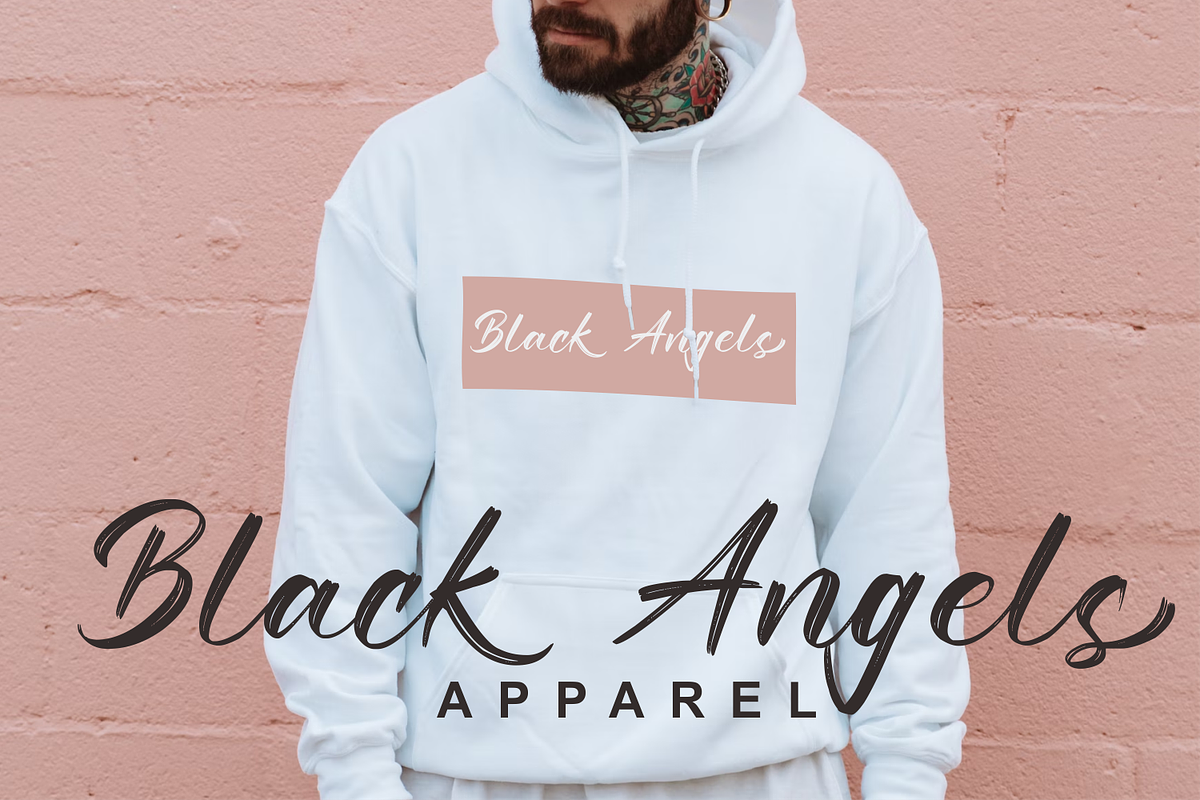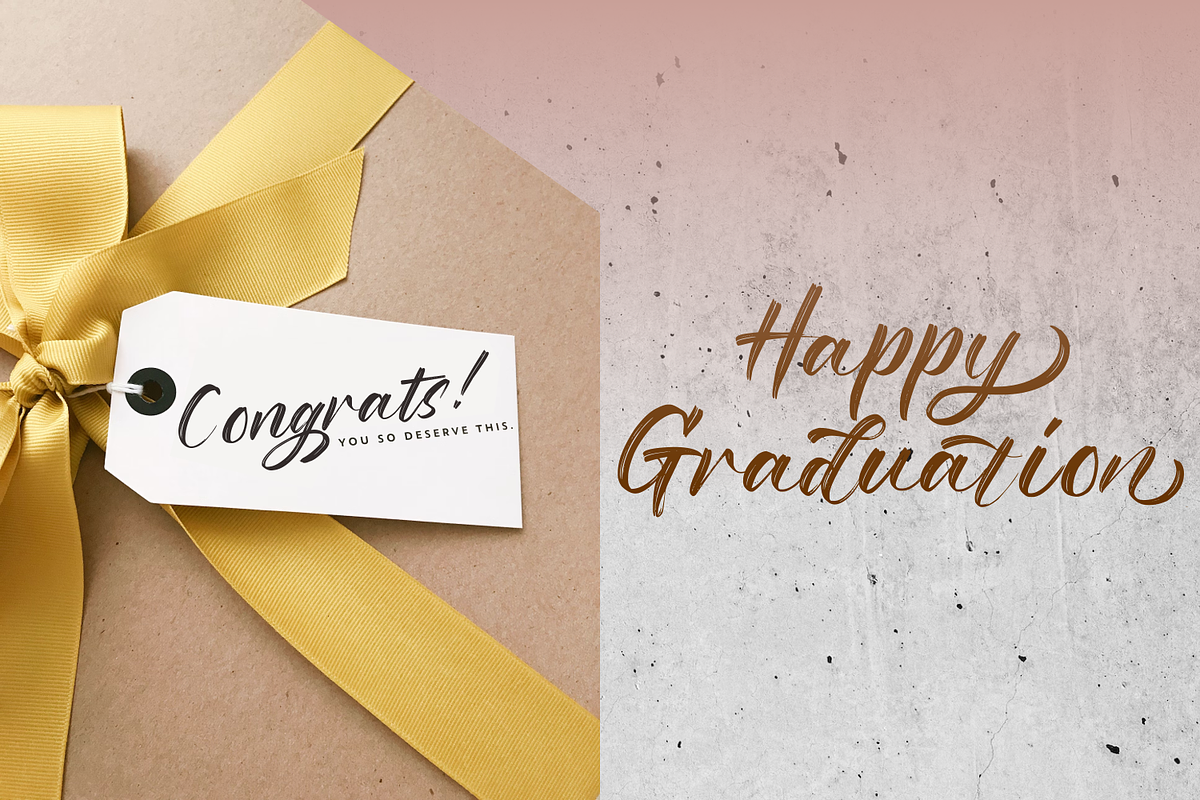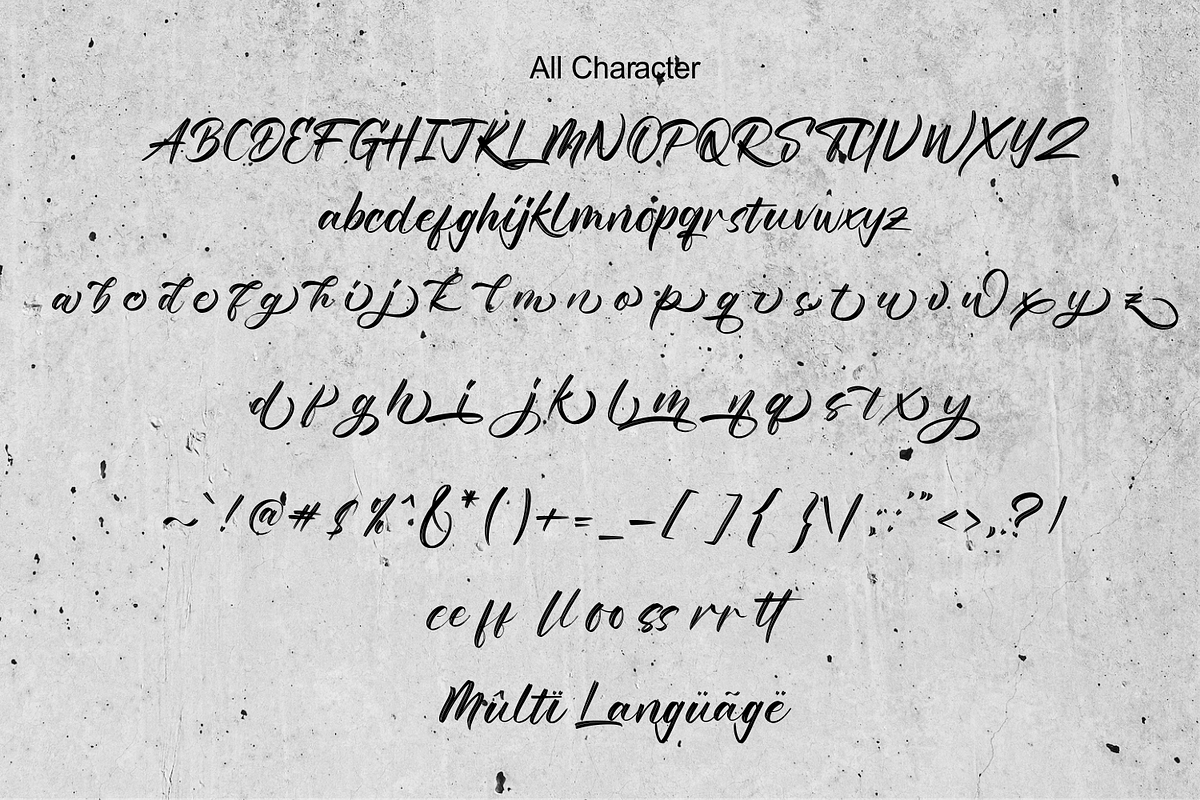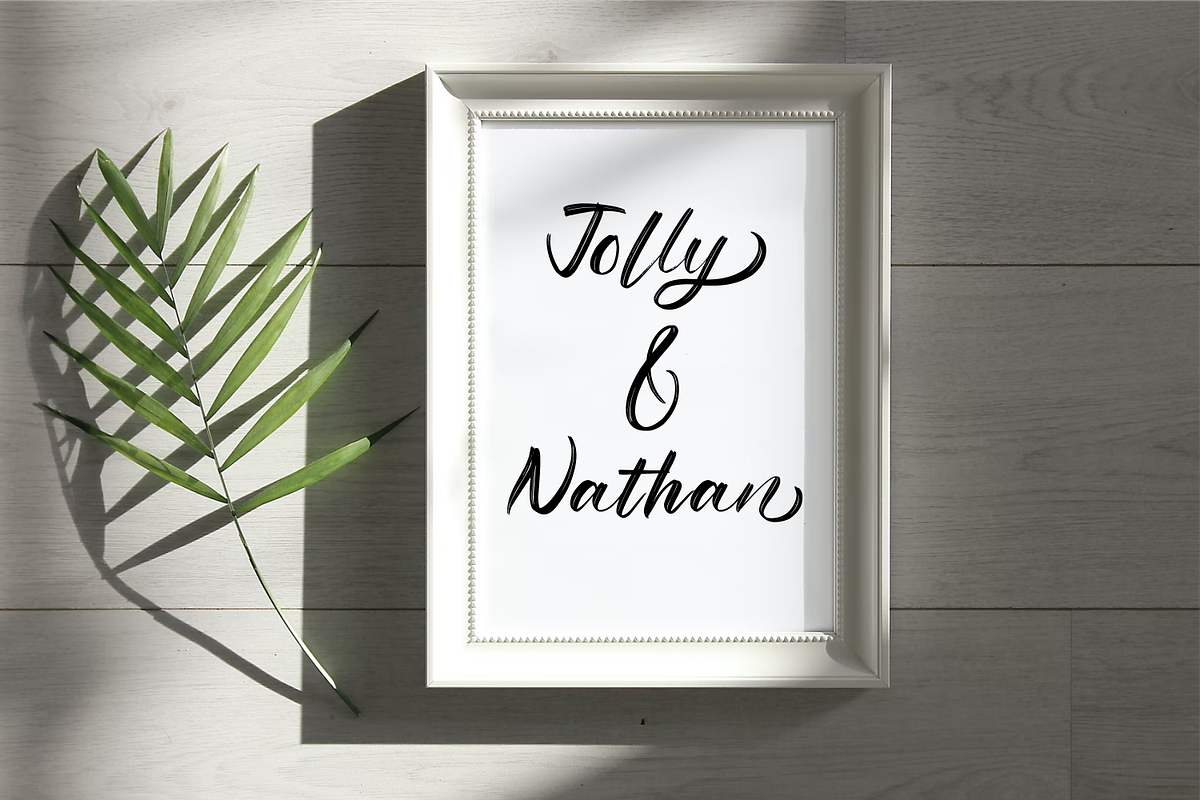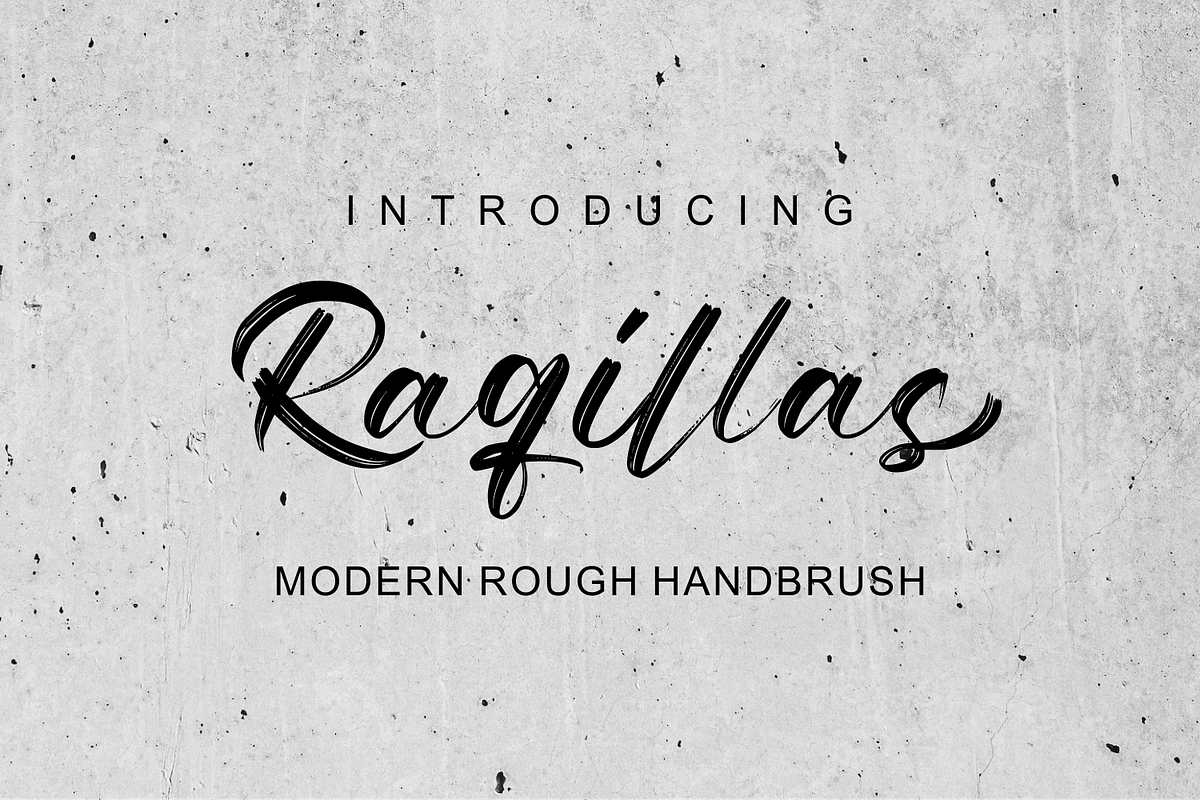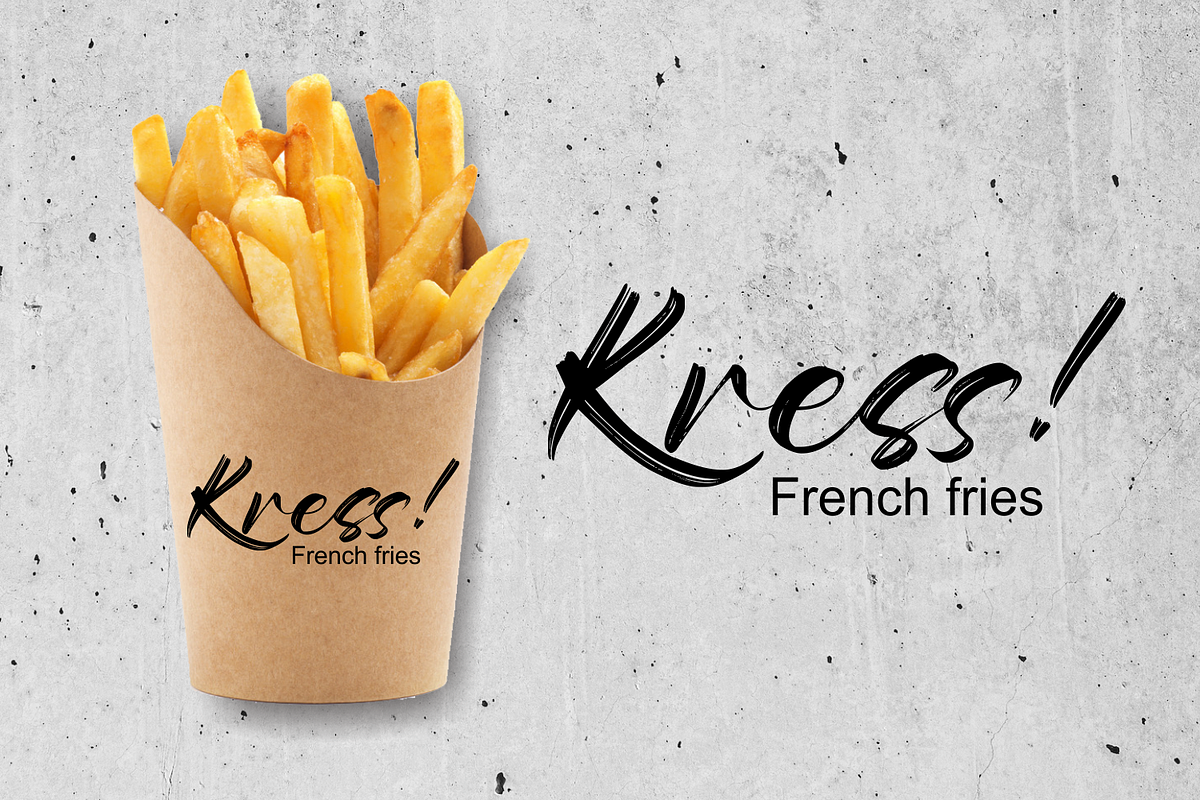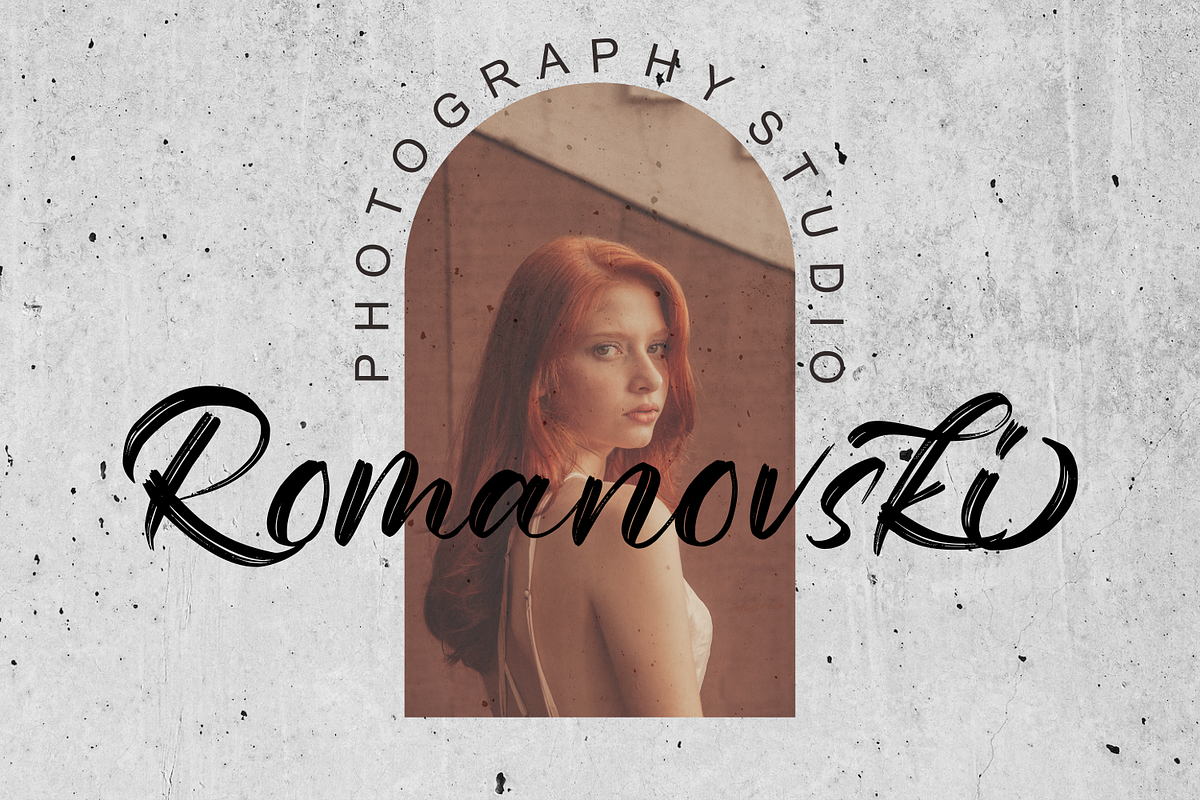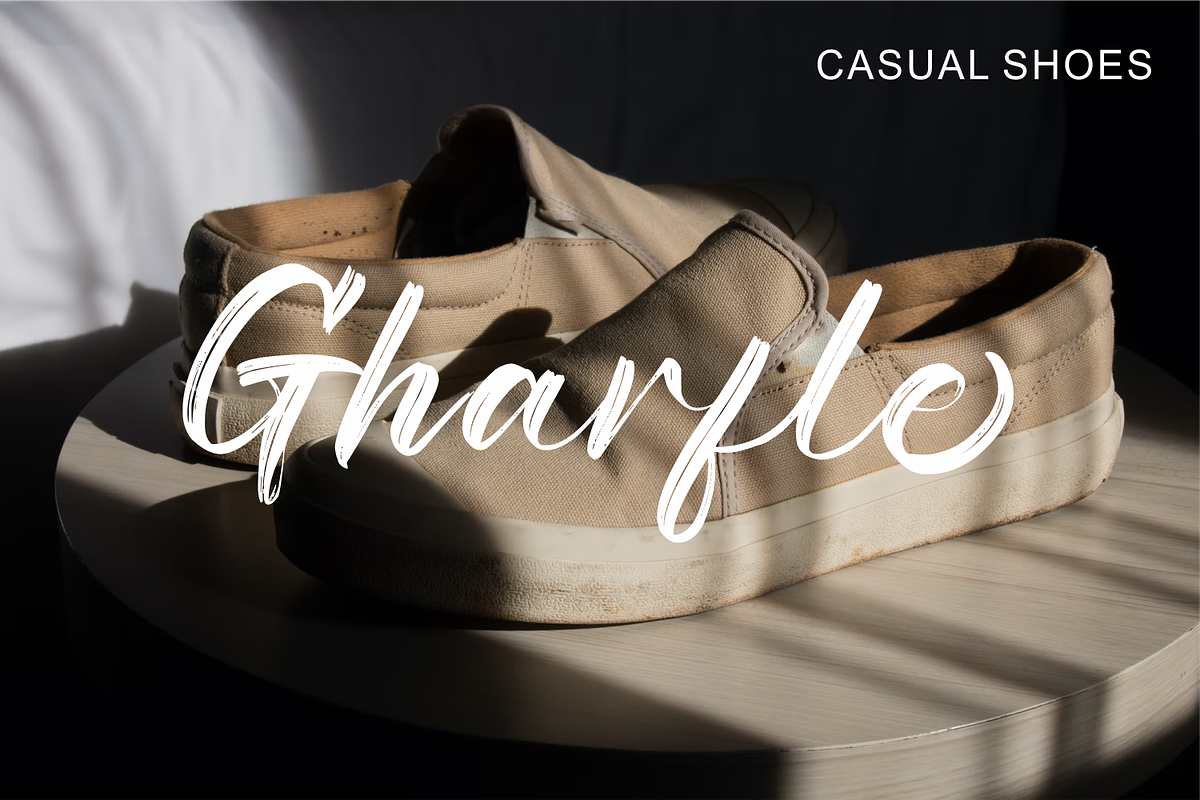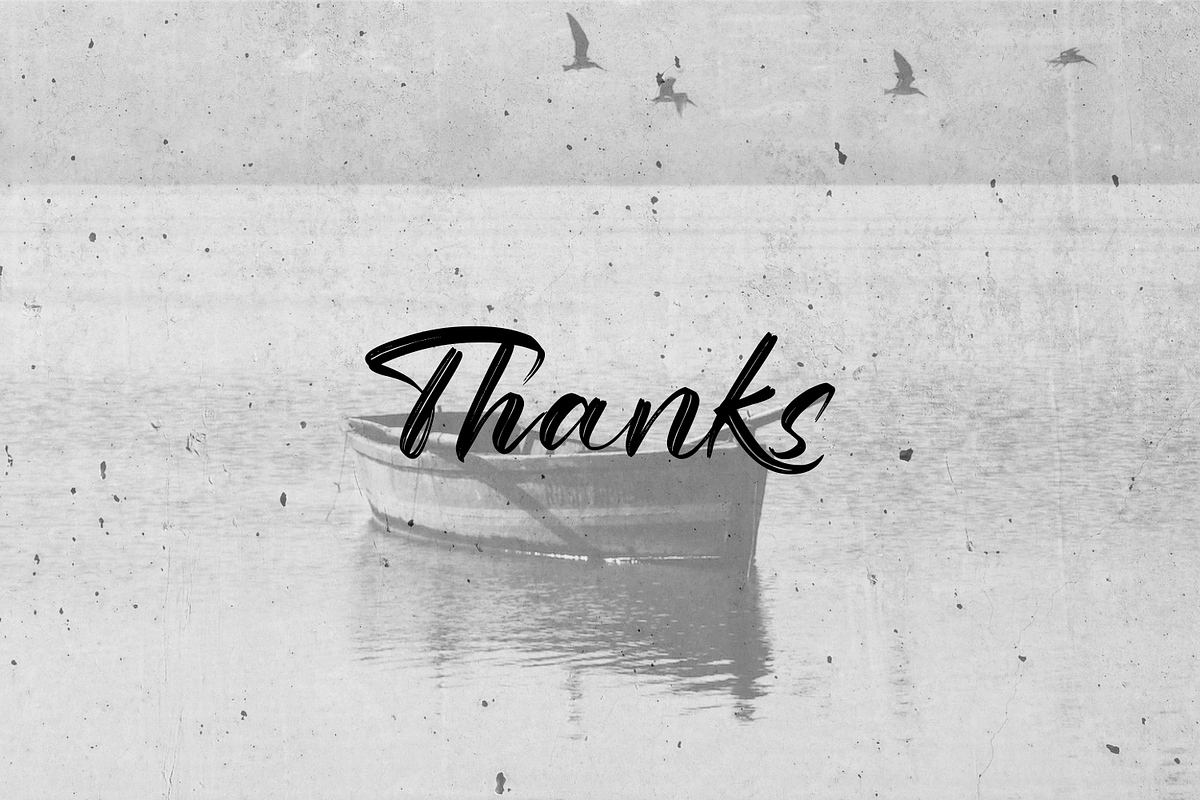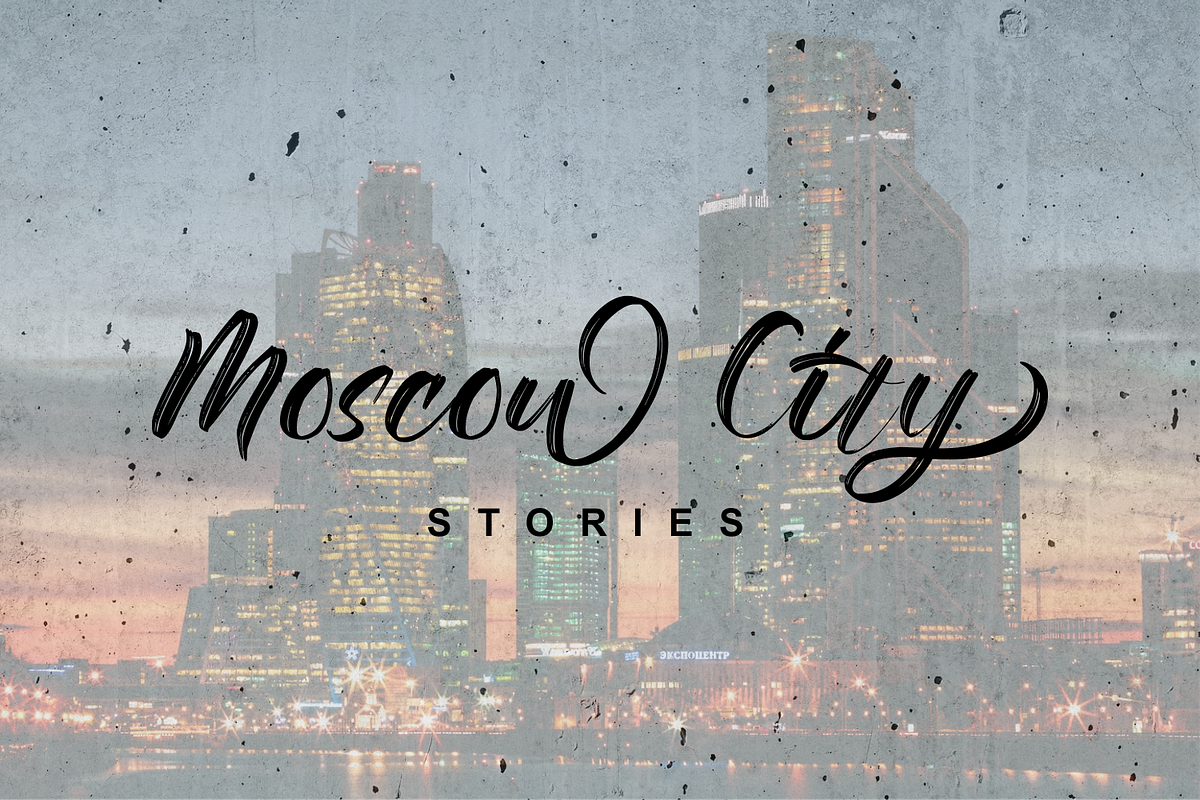
Raqillas
Raqillas, its modern rough brush with original dry brush imperfections, and highly bouncy base line, is crafted to be simple and straightforward but unobtrusive, Ideal for logos, handwritten quotes, product packaging, headers, posters, apparel, merchandise, social media & greeting cards. Basic Latin A-Z and A-z Symbol Numerals PUA Encode Multilingual Support You need a program that supports OpenType features such as Adobe Illustrator CS, Adobe Indesign & CorelDraw X6-X7. There are additional ways to access alternatives, using the Character Map (Windows), Nexus Font (Windows), Font Book (Mac) or a software program such as PopChar (for Windows and Mac). For a more in-depth explanation of Standard Licensing, you can take a look at https://creativemarket.com/licenses. You can also send me a private message if you are not sure at all.